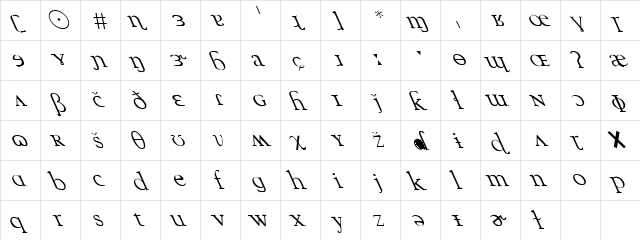
Mustang 2 Regular
Design Context for Mustang 2 Typeface
Mustang 2 takes a measured approach to typography — its balanced proportions and neutral character make it a reliable workhorse for both digital and print work.